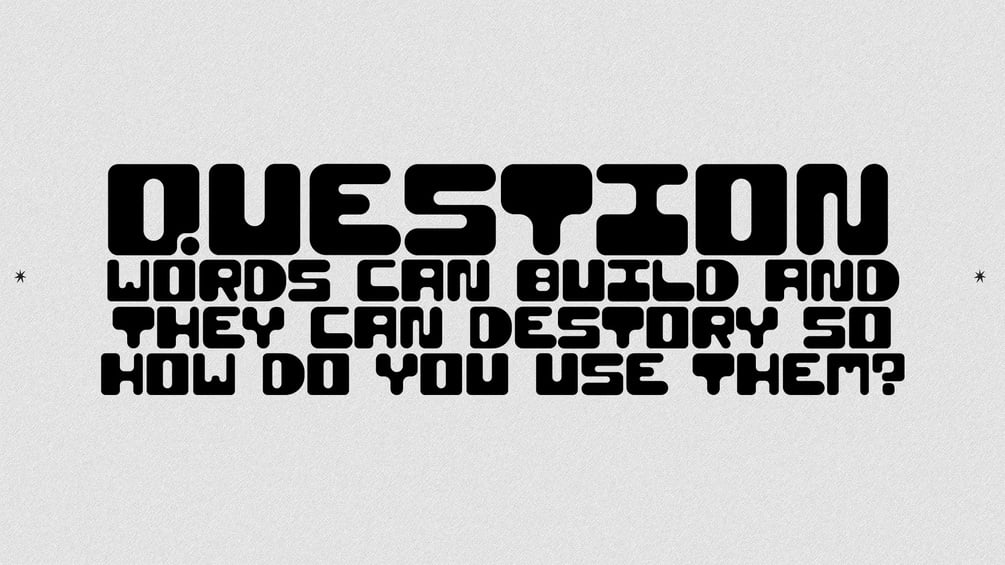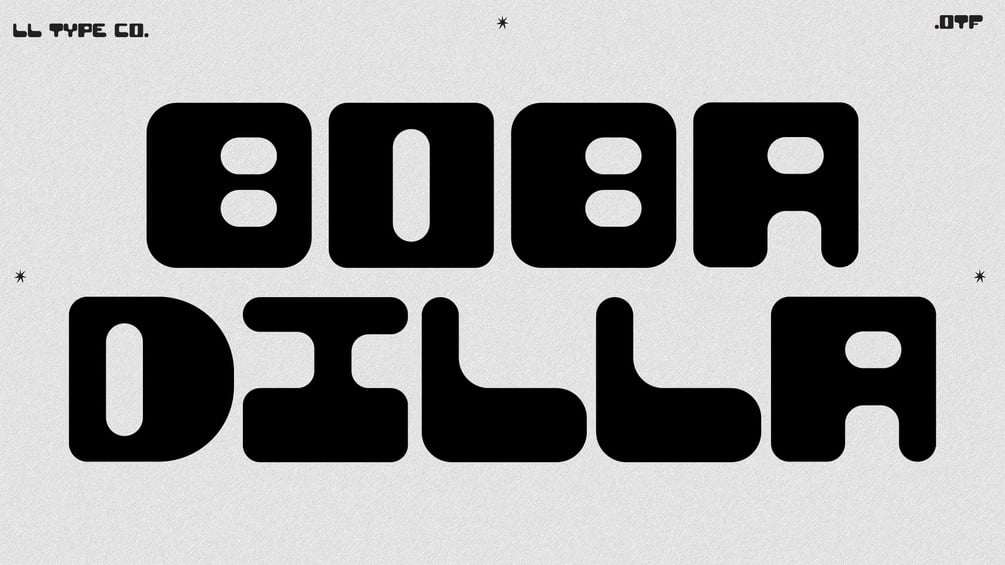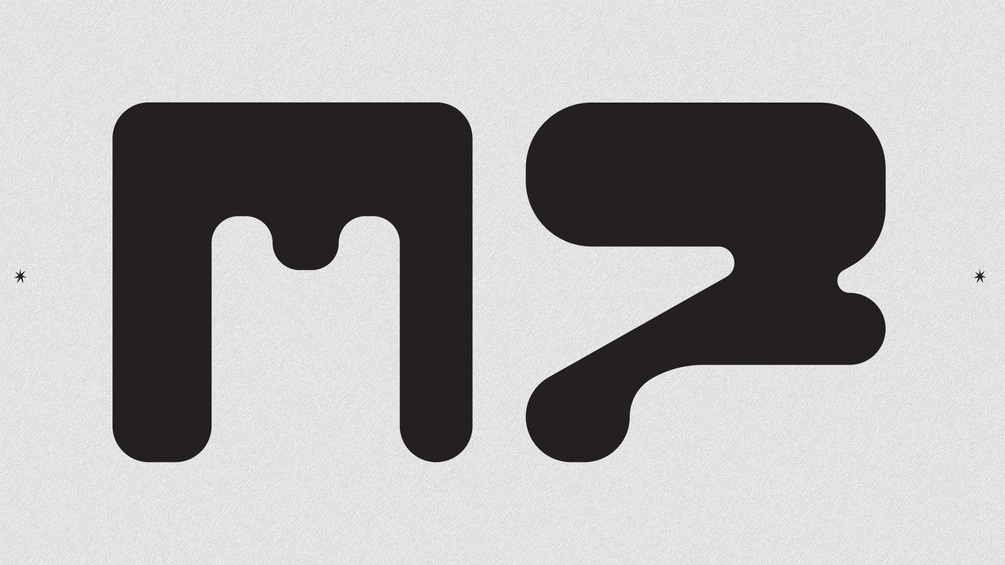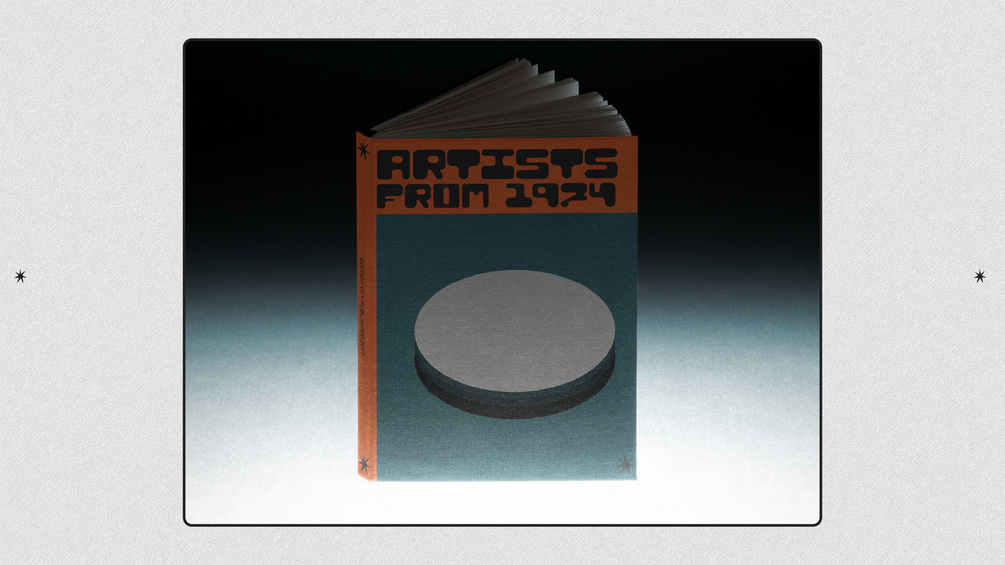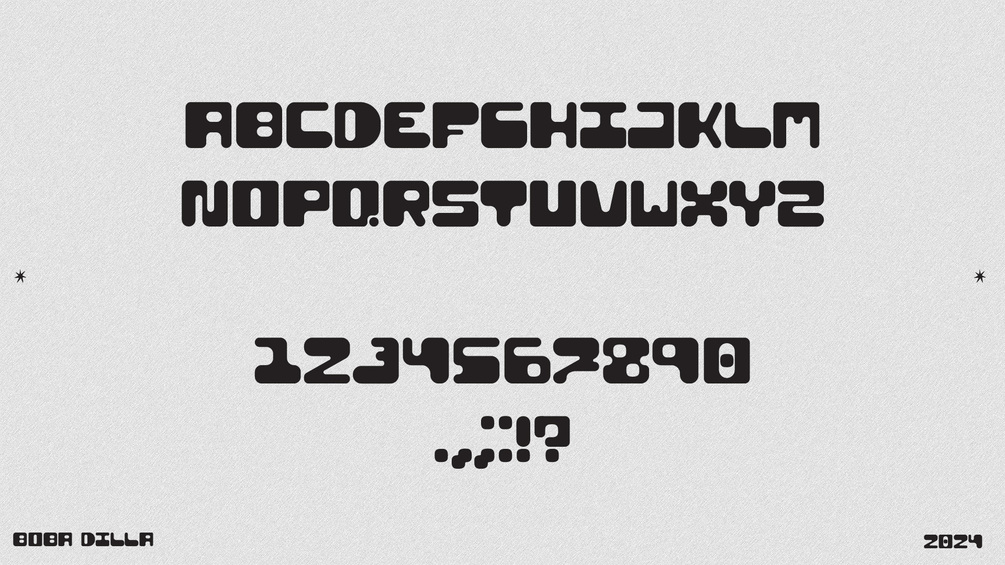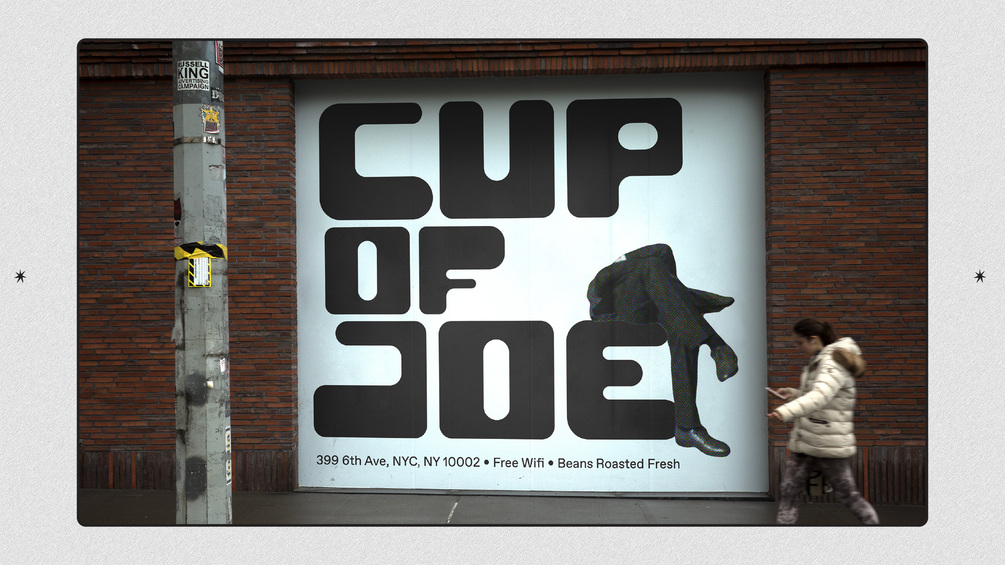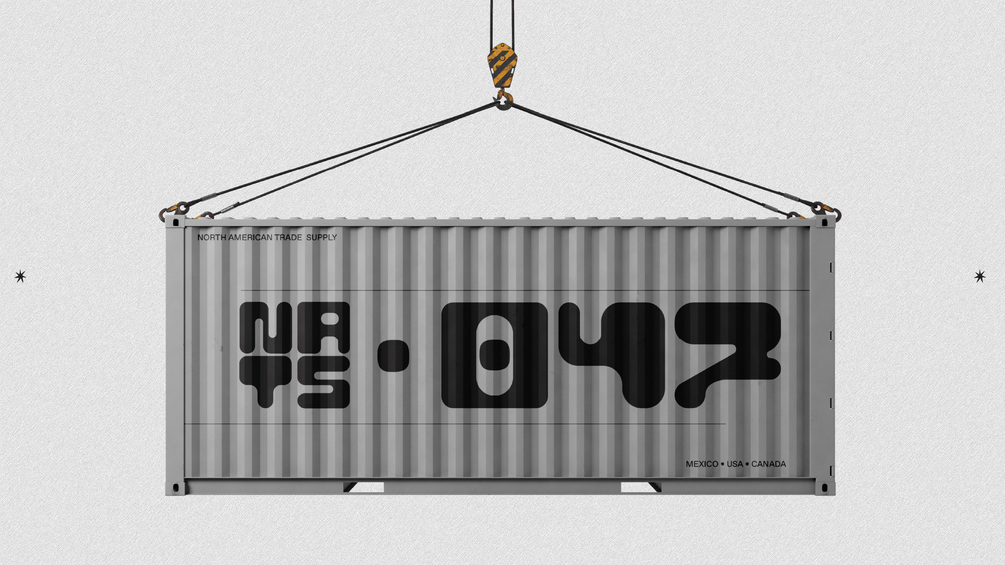
LL Boba Dilla
Boba Dilla is a custom uni-case typeface made for a personal branding project, meant to bridge the organic shapes of nature with the rigid shapes of bricks and urban development. Happy designing!
Boba Dilla est une police personnalisée conçue pour un projet de marque personnelle, destinée à relier les formes organiques de la nature avec les formes rigides des briques et du développement urbain. Bonne conception !